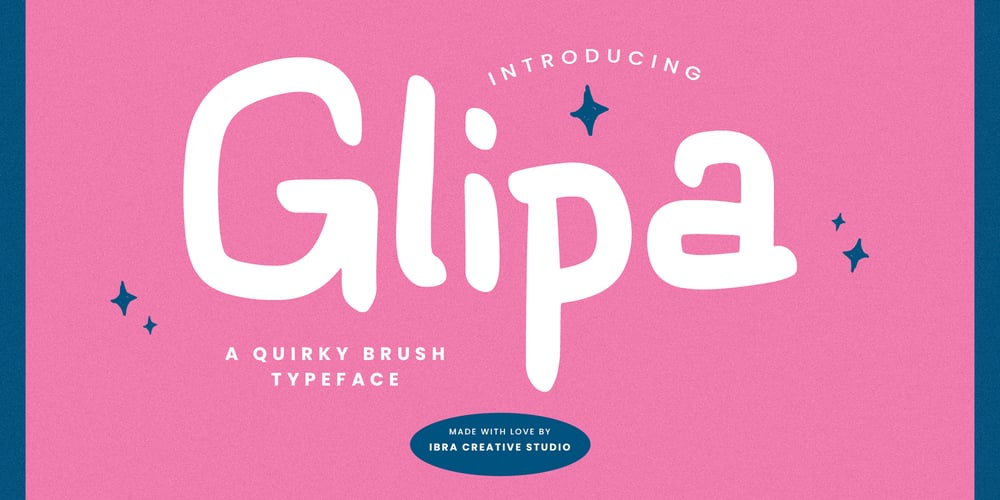
Glipa Font Family was designed by Roisatul Azizah and published by IbraCreative. Glipa contains 1 styles and family package options. Glipa – A quirky brush TypefaceGlipa, a quirky brush typeface, injects a playful and eccentric spirit into the realm of typography with its whimsical strokes and unconventional letterforms. Each character dances on the line between spontaneity and structure, creating a dynamic and unique visual experience. The irregularities in the brush strokes add a touch of handmade charm, making Glipa an ideal choice for designs that seek to break free from the conventional and embrace a sense of individuality. Whether used in vibrant headlines, creative branding, or expressive artwork, Glipa’s quirkiness transcends the ordinary, inviting designers to infuse their projects with a lively and offbeat personality that stands out in the typographic landscape. Glipa is perfect for branding projects, logo, wedding designs, social media posts, advertisements, product packaging, product designs, label, photography, watermark, invitation, stationery, game, fashion and any projects.Fonts include multilingual support for; Afrikaans, Albanian, Czech, Danish, Dutch, English, Estonian, Finnish, French, German, Hungarian, Italian, Latvian, Lithuanian, Norwegian, Polish, Portuguese, Slovak, Slovenian, Spanish, Swedish.